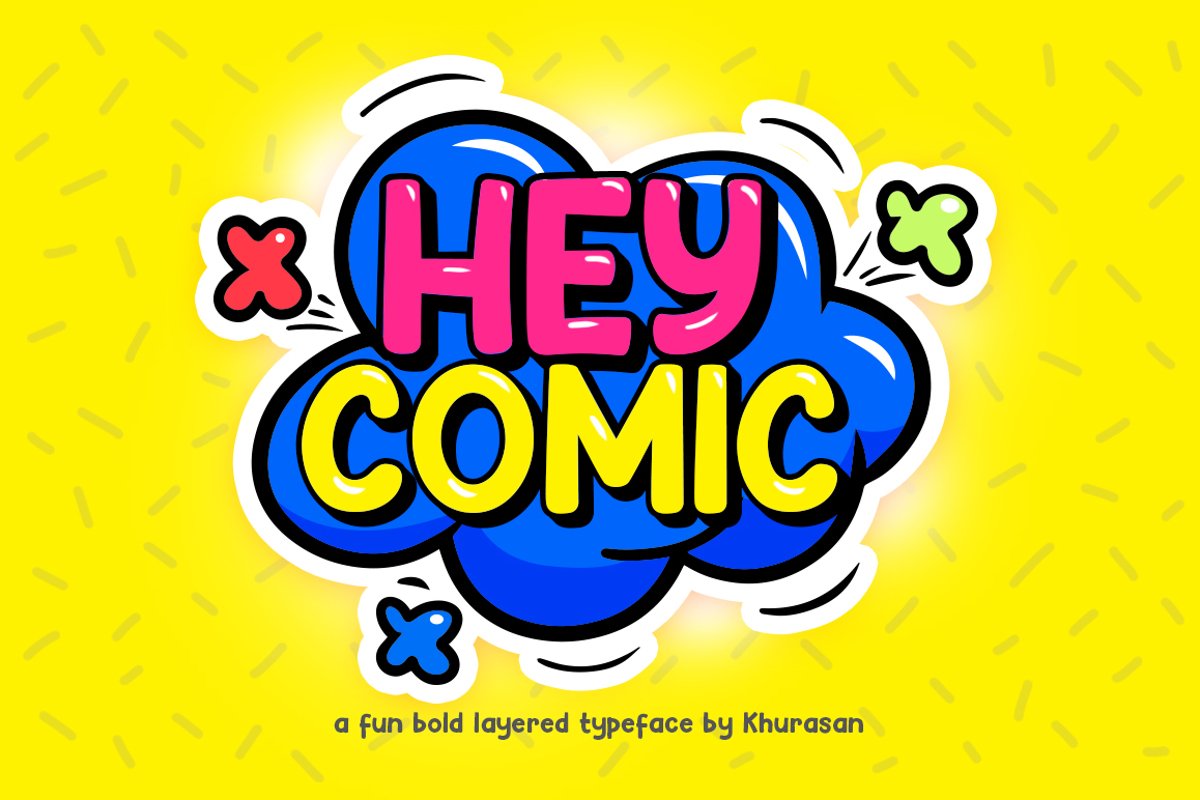
Introducing, Hey Comic font a bold display typeface with cheerful theme for your fun project. Hey Comic font support multilanguage. Hey Comic font suitable for logo, branding, greeting card, poster and any design that you create.